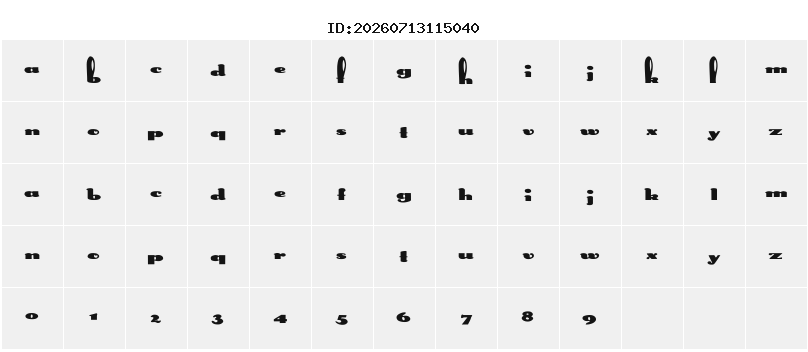
• Font Name: Rabbit Ex
• Full Font Name: Rabbit Ex
About Rabbit Ex.ttf
Rabbit Ex.ttf is a modern, elegant sans-serif font designed for ultimate readability and visual harmony. Perfect for branding, headlines, web design, and print materials.